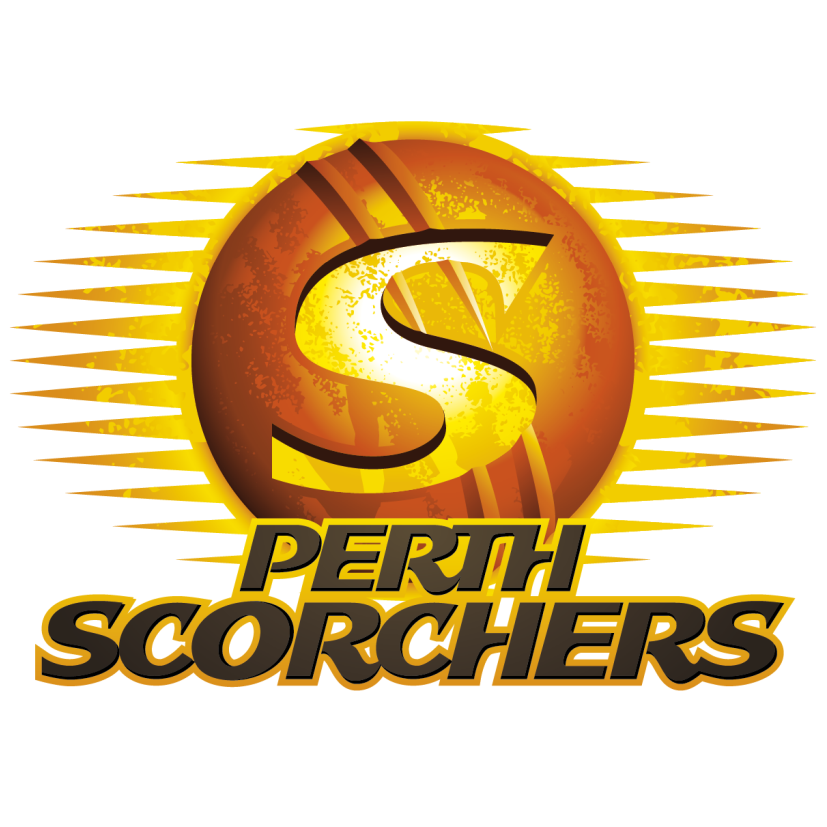
Perth Scorchers Font
Fonts in UseThe Perth Scorchers is a professional cricket team based in Perth, Western Australia. The team competes in the Australian domestic T20 cricket tournament, the Big Bash League (BBL).